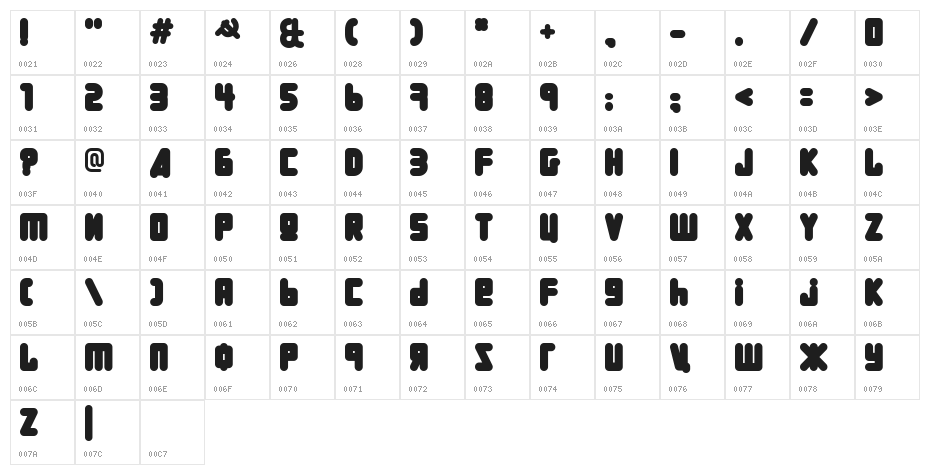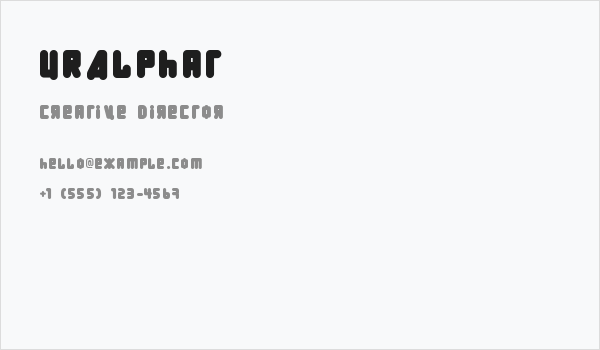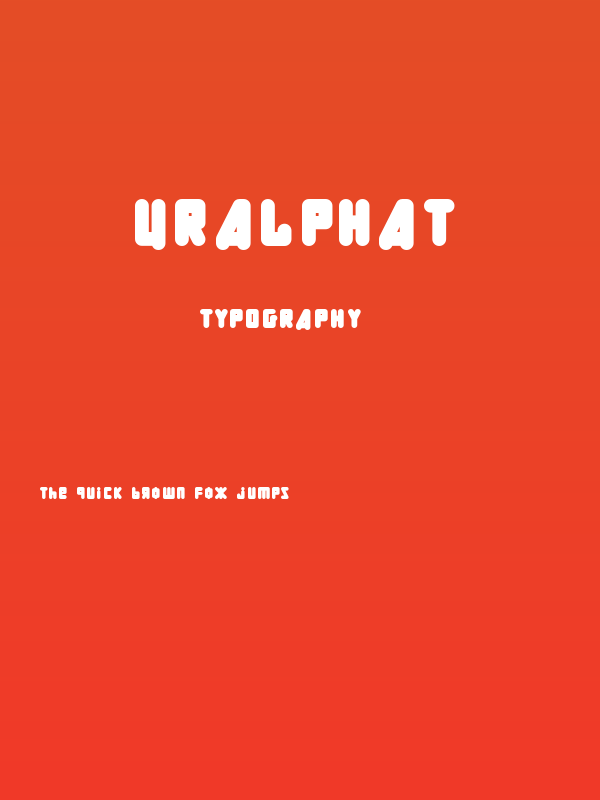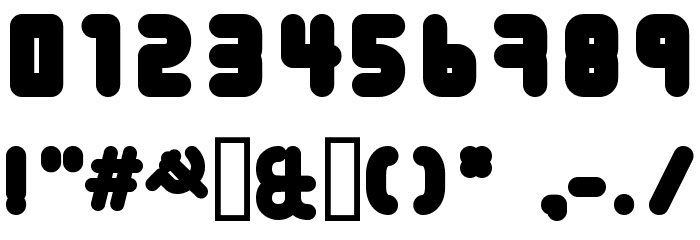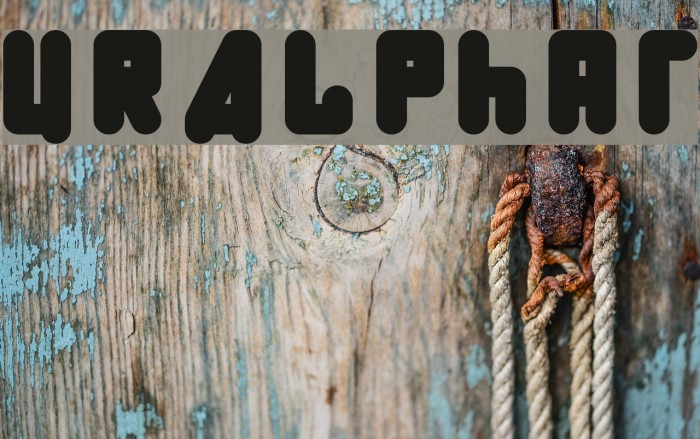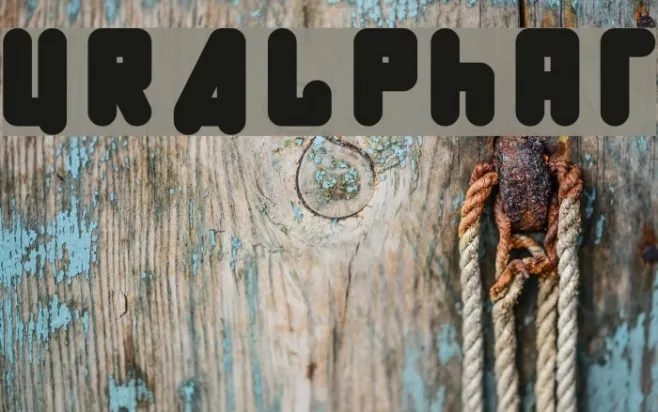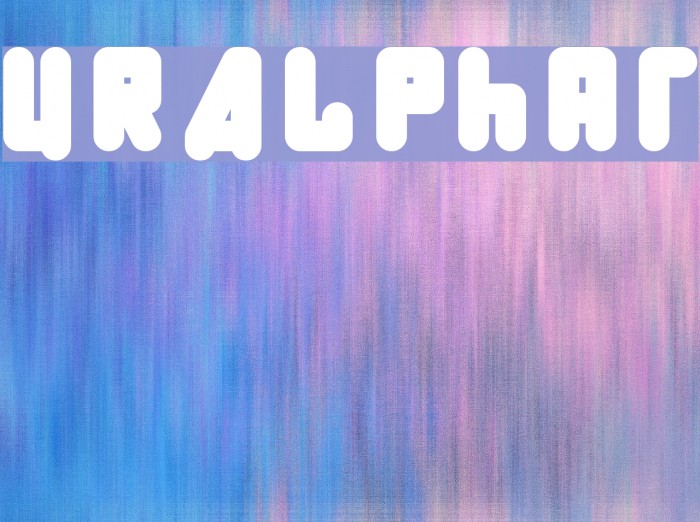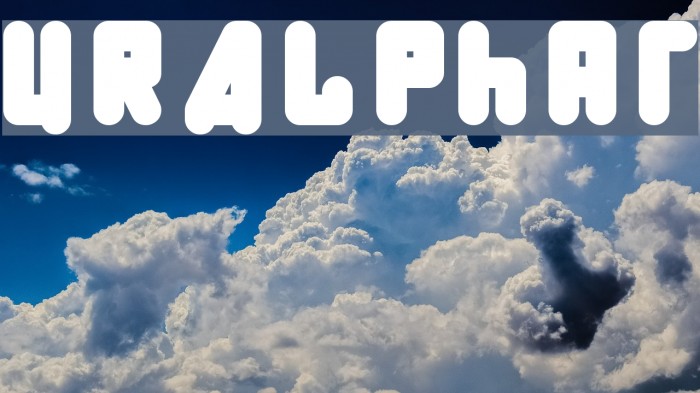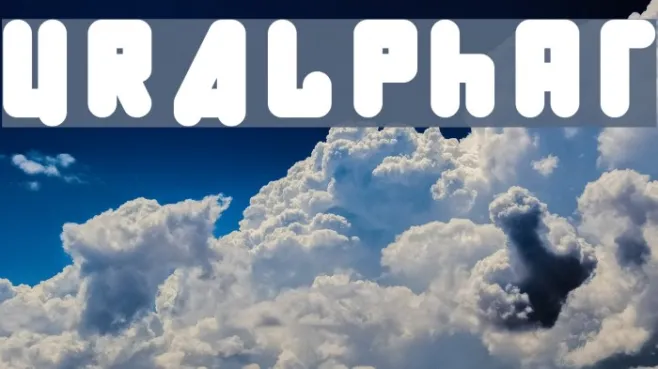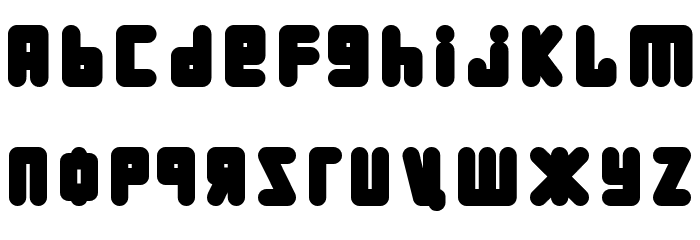
URALphat Font
URALphat Description
This font features bold, rounded characters with a playful and modern aesthetic. The letters are uniformly thick, creating a strong visual impact. The rounded edges and consistent stroke width give it a friendly and approachable feel. The uppercase and lowercase letters maintain a uniform style, while the numerals and special characters complement the overall design. This font's boldness makes it ideal for eye-catching designs, ensuring readability while adding a touch of fun.
| Proposed Projects | Ideal for branding, posters, children's books, and playful graphic designs. |